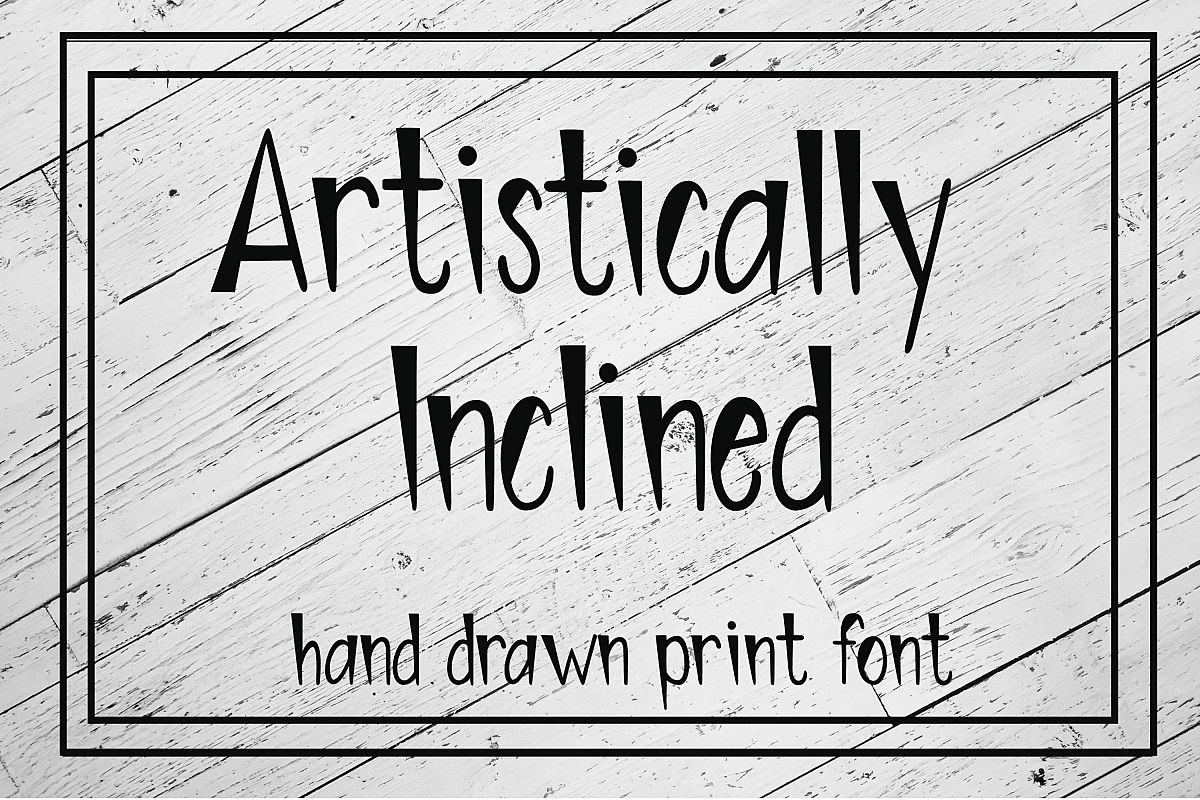
Artistically Inclined - Hand drawn print font
Artistically Inclined is a fun hand drawn font featuring sloping lines. It is made up of capital letters A-Z, lowercase letters a-z, numbers 0-9, accented characters and punctuation.